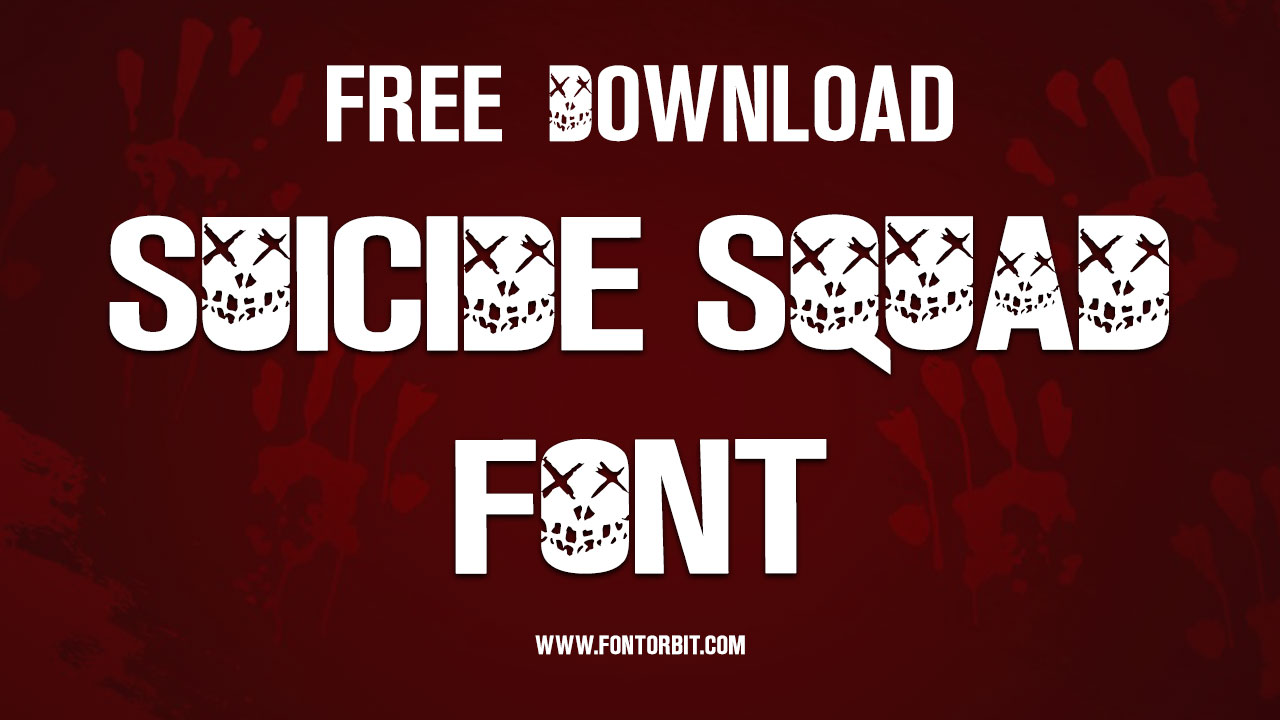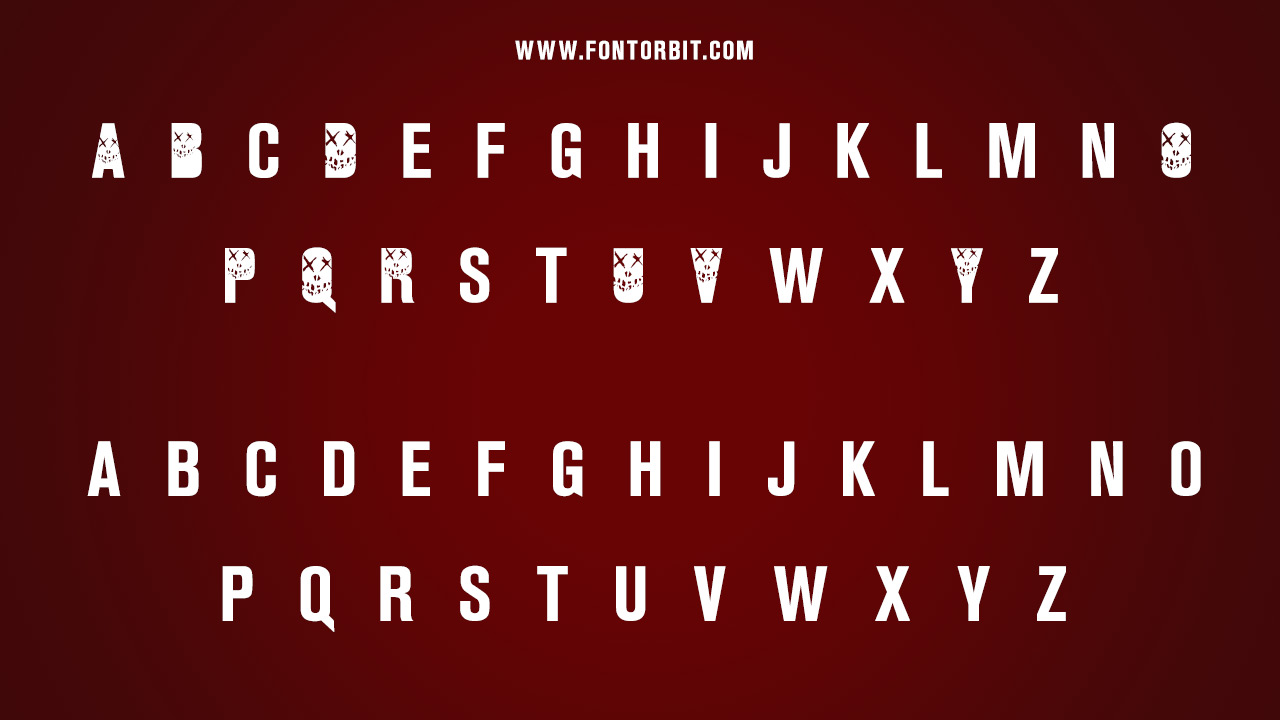
The Suicide Squad Font, associated with the 2016 film Suicide Squad, embodies an edgy and rebellious style that aligns with the film’s distinctive branding.
While the film uses a custom typeface inspired by various design elements, the Suicide Squad Font closest to public availability is a free version designed by Franco Fernández. This font reflects the gritty, modern aesthetic of the film’s logo and is ideal for projects needing a bold, dynamic look.
The Suicide Squad Font Family
Suicide Squad Regular
The Suicide Squad Font offers a unique visual impact with its rough and impactful design, inspired by the film’s logo. It’s characterized by its bold, sans-serif style, which makes it suitable for high-energy designs and dramatic presentations.
- Movie Posters
- Event Branding
- Merchandise
- Creative Designs
The Suicide Squad Font is perfect for any design project that requires a dramatic, high-impact aesthetic. Its distinctive style makes it ideal for movie posters, promotional materials, and other creative designs that desire a bold, rebellious look.
The Suicide Squad Font, available in its free version, captures the essence of the film’s bold and edgy branding. It provides a similar look to the custom font used in the film’s logo and can be used to achieve a striking, professional finish in various design projects.
1.What Is The Suicide Squad Font?
The Suicide Squad Font is a free typeface designed to closely resemble the custom font used in the film Suicide Squad. It reflects the film’s bold and rebellious style.
2.What Fonts Are Similar To Suicide Squad’s Font?
Fonts similar to the Suicide Squad Font include Craft Gothic Bold Condensed, Akzidenz Grotesk Cond Bold, Bebas Neue, and Impact.
3.What Are The Key Features Of The Suicide Squad Font?
The font features a bold, sans-serif design with a dramatic, high-impact aesthetic suitable for movie-themed designs and promotional materials.
4.How To Use The Suicide Squad Font In Branding?
Use the Suicide Squad Font to create striking logos, dynamic movie posters, and other creative designs that reflect the film’s edgy, rebellious spirit.
5.What Are The International Language Support Options For The Suicide Squad Font?
The Suicide Squad Font primarily supports basic Latin characters. You might need to use alternative fonts or additional typefaces with broader language coverage for extensive international language support.